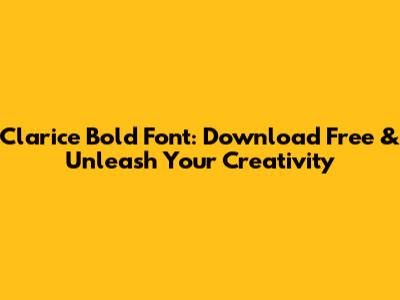
Clarice Bold Font: Download Free & Unleash Your Creativity
Hey everyone! Are you on the hunt for a super cool, eye-catching font that can really make your designs pop? Well, look no further because we're diving headfirst into the world of Clarice Bold, a fantastic font that's available for free download! Whether you're a seasoned designer, a budding enthusiast, or just someone who loves playing around with fonts, this article is for you. We'll explore everything from where to snag this font, what makes it so special, and how you can use it to spice up your projects. Get ready to level up your creative game, guys!
What is Clarice Bold Font?
So, what exactly is Clarice Bold? In a nutshell, it's a font that's known for its strong, confident, and somewhat playful vibe. It's the kind of font that grabs your attention without being overly complicated. The bold strokes of Clarice Bold make it incredibly versatile, working well in various contexts. It's perfect for headlines, logos, posters, social media graphics, and even body text (though you might want to consider the size for the latter!). The font's design balances a modern aesthetic with a touch of character, making it a great choice for projects that need to be both stylish and legible. Think of it as a font that can adapt to many different creative needs! Imagine the possibilities: crafting stunning social media posts, designing eye-catching website headers, or even creating unique invitations for your special events. The possibilities are truly endless, and Clarice Bold is an excellent tool to bring those ideas to life. The font's characteristics provide excellent readability, even at larger sizes, which makes it ideal for titles and headlines. With its strong visual impact, Clarice Bold ensures your message is conveyed clearly and memorably, allowing you to captivate your audience and leave a lasting impression. Let's not forget how important the use of the right font can be in marketing. Using a font like Clarice Bold can instantly elevate your brand's image, making it appear more professional and polished. It is a fantastic choice if you want to leave a lasting impression. Using Clarice Bold can really help to capture your audience's attention, and help in the marketing process.
Characteristics of the Font
Clarice Bold distinguishes itself through several key characteristics. Its defining feature is, of course, the boldness. This weight gives the font a strong presence, making it ideal for grabbing attention. The letterforms are often designed with a slight modern twist, lending a contemporary feel. Despite its bold nature, it generally maintains a good degree of readability, especially at larger sizes. It is designed to be easily readable in various contexts and formats. The design strikes a perfect balance between being assertive and approachable. The rounded edges of some of the letters add a hint of playfulness, while the clear, clean lines keep it from appearing cluttered. The font family typically includes a range of characters, including all the basic letters, numbers, and symbols, and often includes international character support. All of these features combine to make it a versatile font for various design projects. The font is the perfect choice for anyone looking to make a bold statement! The font's characteristics offer the perfect balance between style, sophistication, and readability. It will help your design to look great! Whether you are creating a logo, designing a website, or preparing marketing materials, Clarice Bold is designed to help you communicate your message with clarity and flair. The strength of the font's characteristics will allow you to make a lasting impression on your audience and make your content memorable. Remember, your choice of font says a lot about your brand, and with Clarice Bold, you're signaling confidence, creativity, and a modern sensibility. That's why so many designers and creatives are drawn to this particular font style. They are confident that it will deliver them the results that they want!